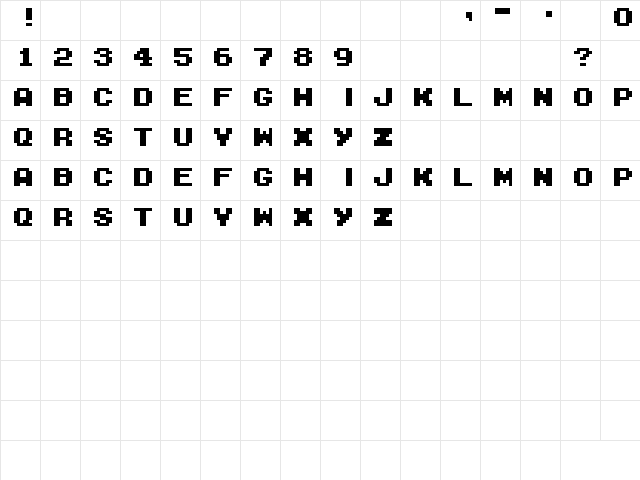
M04_FATAL FURY BLACK Regular
Design Context for M04_FATAL FURY BLACK Typeface
M04_FATAL FURY BLACK takes a measured approach to typography — its balanced proportions and neutral character make it a reliable workhorse for both digital and print work.